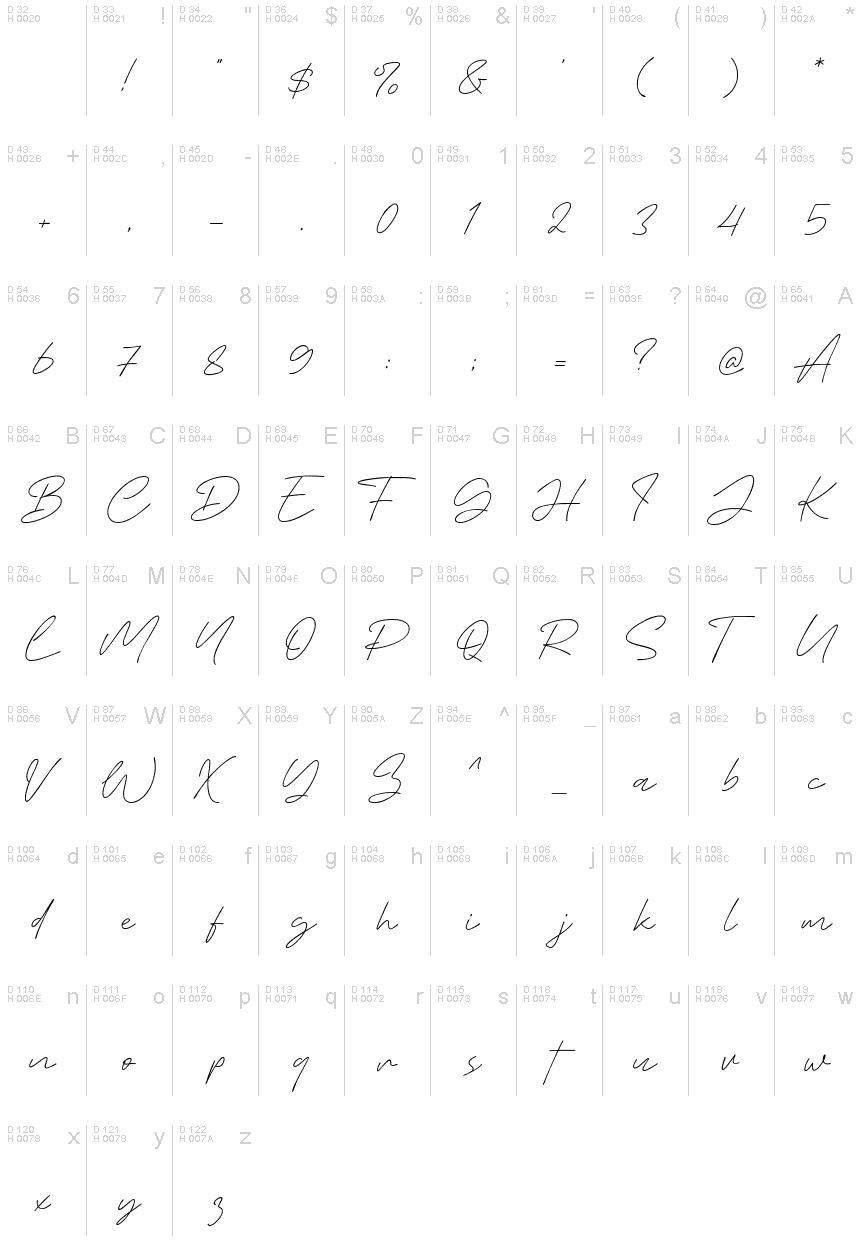
Culture Wind
Culture Wind, created by Khurasan, is a semi-light handwritten font that exudes elegance and modernity. With its clean and stylish design, this font is ideal for a wide range of creative projects.
Use it to add a touch of sophistication to posters, logos, magazines, book covers, banners, and more. Its versatility allows it to seamlessly blend with various design concepts and styles. Let Culture Wind elevate your creative ideas and make them truly exceptional.
Embrace this amazing font and watch as it brings your designs to life with its unique charm and appeal.